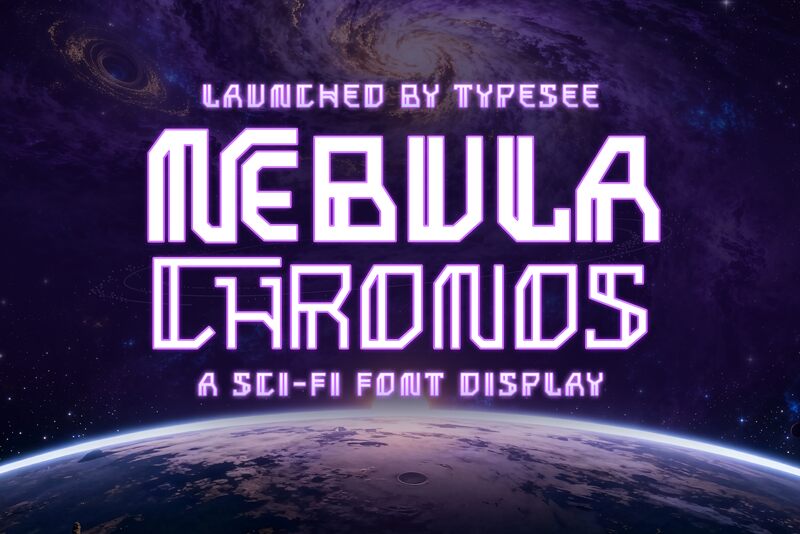
Nebula Chronos font family by Typesee Type Foundry is a techno free font family for personal use. It comes in 3 distinct font styles. Its look and feel are inspired by the sci-fi world which is represented by a modern, futuristic look with geometric shapes and angular corners. With its energetic and dynamic lines, this family is a perfect fit for brands and designs inspired by technology.
Create a stunning modern or futuristic-looking visual identity by using Nebula Chronos in the editing of magazines, leaflets, and posters, editorial designs of magazines and newspaper covers, digital, online and print ads, packaging designs of tech-related products, and more.